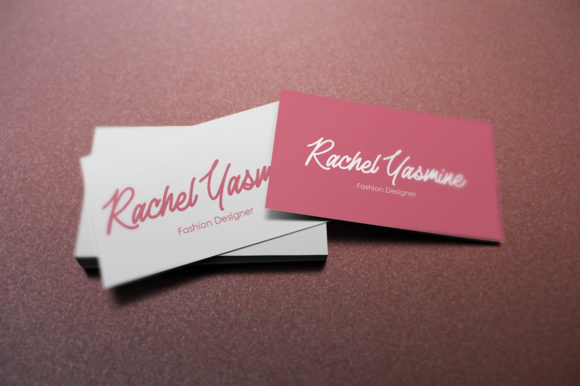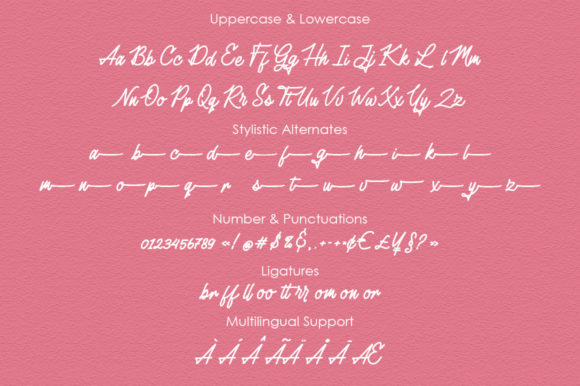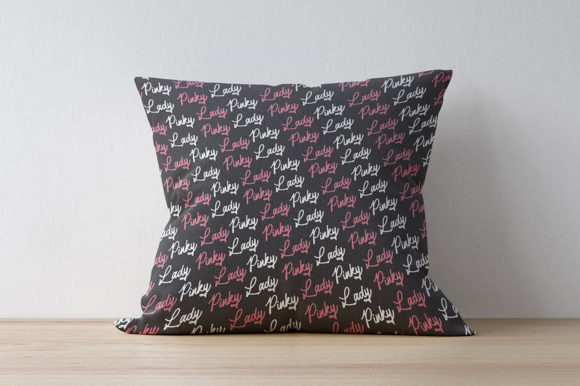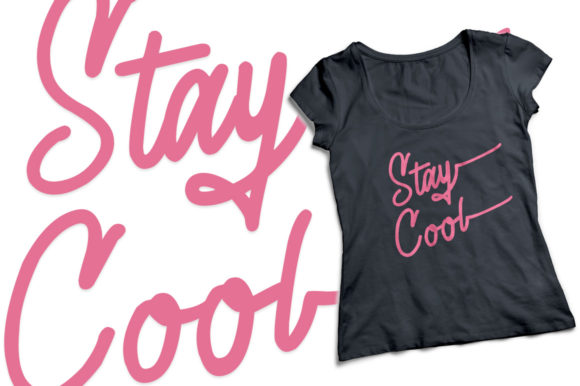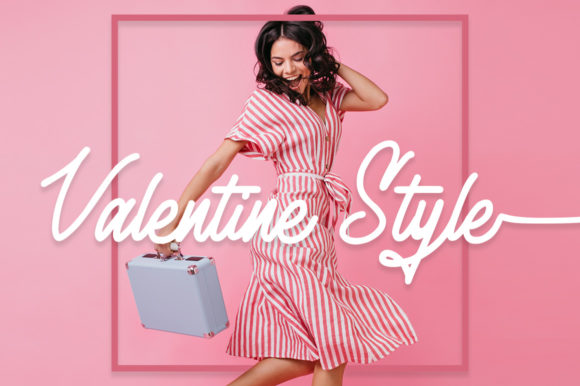
Introducing Handy Font: The Sweet and Natural Script Font for Your Designs
Are you tired of using the same old fonts for your designs? Look no further! Handy Font is a beautiful, sweet, and natural script font that will add a touch of elegance and sophistication to your creations. With its lovely flow and unique lettering style, Handy Font is perfect for designers and crafters who want to make their designs come alive.
What Makes Handy Font Special?
Handy Font is not just another script font. It’s a carefully crafted font that features a unique and beautiful touch on every letter. The font’s natural flow and rhythm make it perfect for creating designs that are both visually appealing and easy to read. Whether you’re designing a logo, a greeting card, or a social media post, Handy Font is sure to impress.
One of the best things about Handy Font is that it’s PUA (Private Use Area) encoded. This means that you can access all of the glyphs and swashes with ease, giving you even more creative freedom and flexibility. With Handy Font, you can easily add flourishes and decorations to your designs, making them truly unique and eye-catching.
Handy Font is perfect for designers and crafters who want to add a personal touch to their creations. Whether you’re creating digital designs or handmade crafts, Handy Font is a versatile font that can be used for a wide range of projects. From stationery and invitations to logos and branding, Handy Font is a great choice for anyone who wants to add a touch of elegance and sophistication to their designs.
Key Features of Handy Font
- Sweet and natural script font with a lovely flow
- Unique and beautiful touch on every letter
- Perfect for designers and crafters
- Versatile font suitable for a wide range of projects
Tips and Inspiration for Using Handy Font
Here are a few tips and inspiration ideas for using Handy Font in your designs:
- Use Handy Font to create beautiful stationery and invitations
- Add a personal touch to your logos and branding with Handy Font
- Use Handy Font to create eye-catching social media posts and graphics
- Combine Handy Font with other fonts for a unique and creative look
Handy Font is a beautiful and versatile script font that’s perfect for designers and crafters. With its sweet and natural flow, unique lettering style, and PUA encoding, Handy Font is a great choice for anyone who wants to add a touch of elegance and sophistication to their designs. So why not give Handy Font a try today and see how it can bring your designs to life?